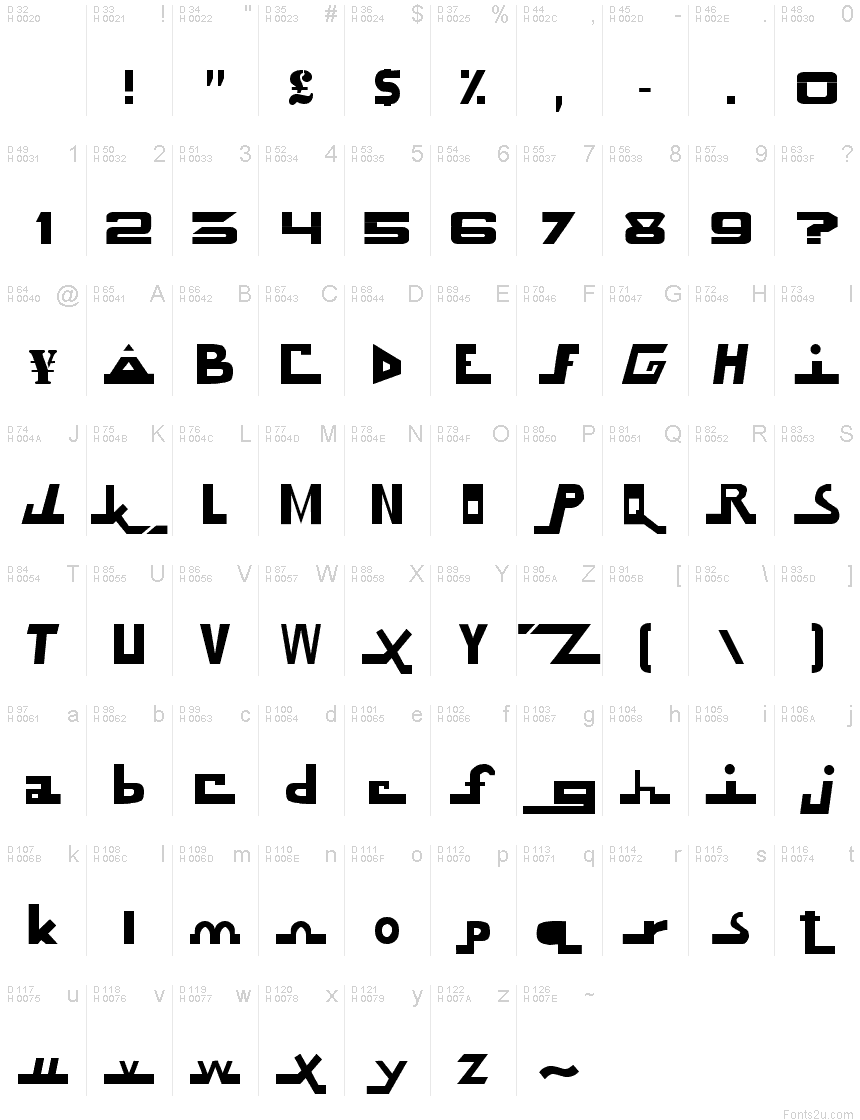
Know Future
Created by Jim Sorenson. Version .90 finished on 6/3/97. Based on the Zic Zak corporation from Max Headroom, the font takes its name from the company logo.